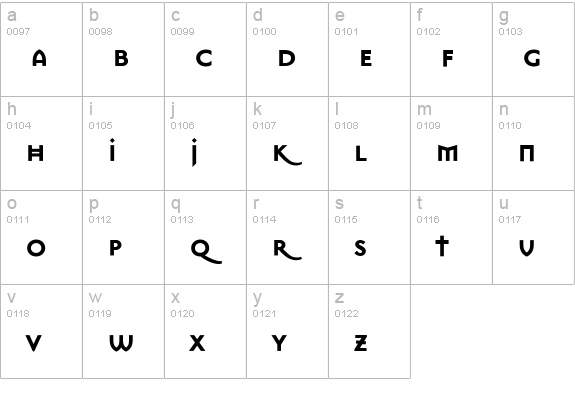
MasonSansSuper-Bold Font Details
MasonSansSuper-Bold is a strong, high-contrast variant in the MasonSansSuper typeface family \xE2\x80\x94 well suited to headlines, attention-grabbing titles, and strong calls-to-action.
MasonSansSuper-Bold is a modern and bold typeface that exudes confidence and strength. Its strong and sturdy letterforms make it perfect for headlines, titles, and any design that requires a commanding presence. This font is designed with precision and attention to detail, ensuring clean lines and readability even at smaller sizes. What sets MasonSansSuper-Bold apart is that it is not only a remarkable font, but it is also available for free. Yes, you read that right! This incredible font is freely available to download at FontsMarket.com. It is a rare opportunity to get your hands on a high-quality, professionally designed font without spending a penny. With MasonSansSuper-Bold, you can elevate your designs to a whole new level. Its bold and impactful nature makes it ideal for branding, packaging, posters, logos, and more. Whether you are a professional designer or an enthusiast, this font is sure to become your go-to choice for projects that demand attention and make a lasting impression. The versatility of MasonSansSuper-Bold is another reason why it stands out. It works well in both digital and print formats, ensuring that your designs look stunning across various mediums. Its wide range of characters and punctuation marks further add to its flexibility, allowing you to create unique and eye-catching compositions. Downloading MasonSansSuper-Bold from FontsMarket.com is a breeze. Simply visit the website, locate the font, and click the download button. Within seconds, you will have this fantastic font ready to be used in your design projects. The ease of access combined with its exceptional quality makes MasonSansSuper-Bold a must-have in every designer's toolkit. So why wait? Take advantage of this incredible opportunity and add MasonSansSuper-Bold to your font collection today. Whether you are a professional designer, a student, or someone who appreciates great typography, this font will not disappoint. Download it for free at FontsMarket.com and let your designs stand out with its bold and captivating presence.